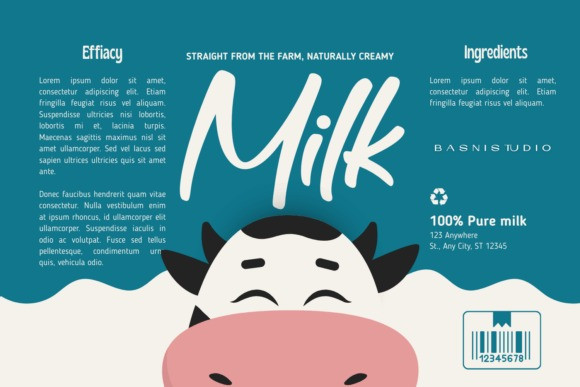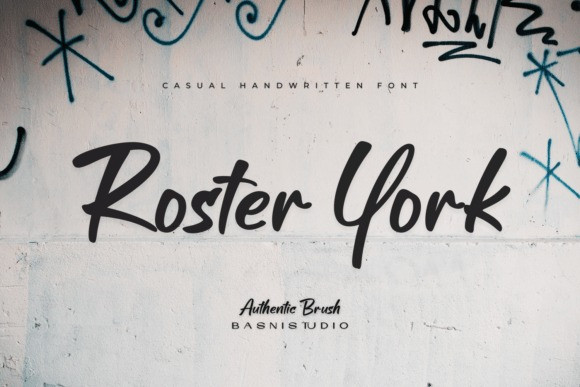
Roster York Font
Roster York Font is a casual, handwritten font that captures the raw, energetic soul of street art and authentic brushwork.Created by Basnistudio, this typeface strikes a perfect balance between urban grit and approachable charm. It features fluid, expressive strokes that mimic the natural pressure and movement of a real brush, giving your text an immediate sense of personality and “hand-crafted” warmth.
The letterforms are bold and confident, making them ideal for projects that need to stand out with an organic, unrefined edge.Whether you are designing edgy apparel, eye-catching social media graphics, or modern branding for a creative studio, Roster York provides that sought-after “human touch” that digital fonts often lack. It is more than just a typeface; it is a visual statement of authenticity and creative freedom, perfect for designers who want to break away from the rigid lines of traditional typography.